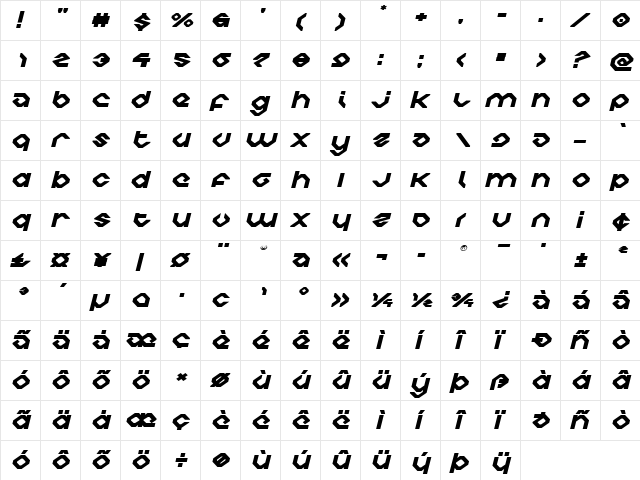
Charlie's Angles Expanded Italic Expanded Italic
Design Context for Charlie's Angles Expanded Italic Typeface
Charlie's Angles Expanded Italic is a composed and adaptable typeface that performs quietly and consistently across a wide range of design contexts. The slanted form adds forward momentum and visual energy.
Pro Tip: Use Charlie's Angles Expanded Italic for emphasis, pull quotes, and subheadings where its slanted energy can add rhythm to the layout.